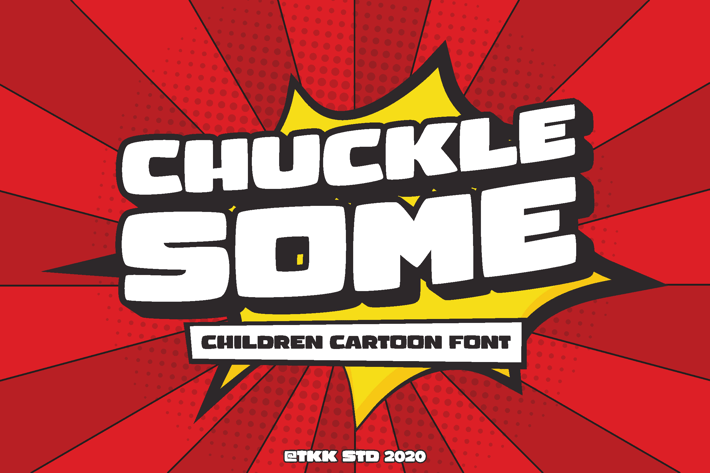
CHUCKLESOME - Comic Font
CHUCKLESOME – A Loud & Playful Comic Font
CHUCKLESOME is a high-energy comic typeface designed for children’s branding and visual storytelling. It features bold all-caps letterforms with thick stems, tight spacing, and strong horizontal weight—ideal for loud, expressive, and punchy communication. With its playful structure and exaggerated terminals, this font thrives in bold layouts and bright color palettes. The vibe is energetic, fearless, and childlike—fitting for modern kids markets, comic merchandise, or explosive UI interfaces.
From superhero posters to pizza box branding, CHUCKLESOME delivers loud clarity and fun. It's made for creators who want their headlines to shout in a joyful, comic-book tone. Perfect for YouTube thumbnails, kids’ T-shirts, comic strips, summer camp flyers, or gaming apps that need a heroic visual punch. Its bold proportions and sharp impact immediately connect with young viewers and fun-loving audiences alike.
Key Features
Built to Pop Off the Page:
- Strong all-caps with comic-style block weight
- Clean outlines with geometric emphasis for punchy legibility
- Tight letter spacing for maximum visual density
Perfect for Kids-Focused Creatives:
- Gaming UI, comic books, pop-up displays, children’s events
- T-shirts, street posters, snack branding, or cartoon-themed merchandise
- Great for thumbnail text, loud calls-to-action, or festival names